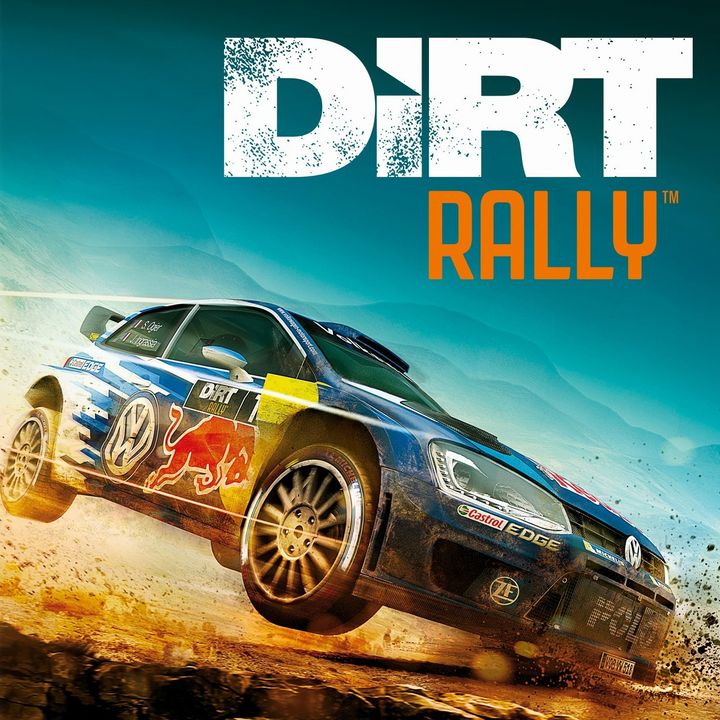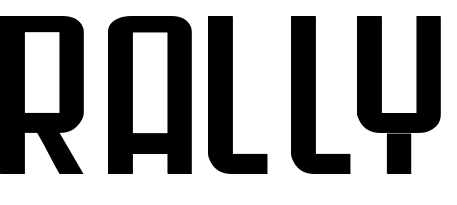
Dirt Rally Font
Fonts in UseDirt Rally is a realistic racing video game developed by Codemasters for Microsoft Windows, PlayStation 4, and Xbox One consoles. The game features various rally cars and courses with unpredictable weather conditions, challenging players to navigate through rough terrain.
The Dirt Rally logo comprises two fonts: Helvetica Black for the "Dirt" part and Revolution Gothic Regular for "Rally". The Rally font is a condensed sans-serif based on PAG Revolucion, inspired by retro Cuban propaganda. An alternative free font is Gunblade by Press Gang Studios, available for download in the Fonts Used Section.